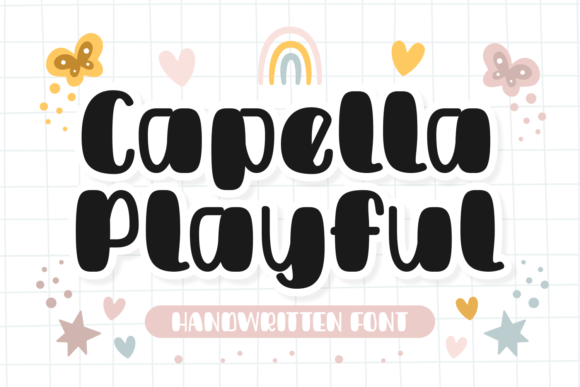
Unleash the playful spirit of Capella Playful, a charming handwritten display font that adds a touch of whimsy to your designs. Each character dances across the page with a delightful chubbiness, captivating your audience with its irresistible charm.
Let Capella Playful ignite your creativity and transform ordinary typography into extraordinary masterpieces. Whether you're crafting heartfelt invitations, eye-catching posters, or captivating banners, this versatile font will make your words shine. Its playful nature adds a touch of magic to every project, evoking a sense of joy and wonder.
Immerse yourself in the limitless possibilities of Capella Playful. Let its playful curves and cheerful spirit inspire you to create designs that connect with your audience on an emotional level. Embrace the power of this enchanting font and watch your typography designs blossom with personality and charm.